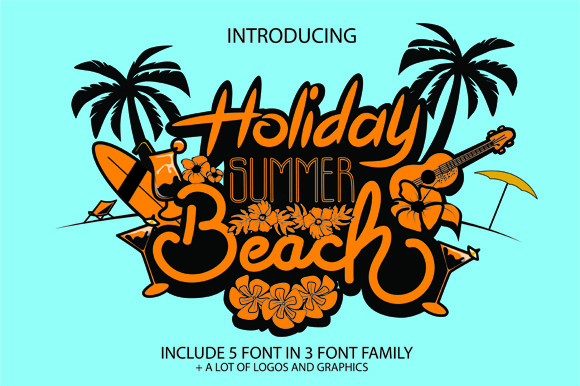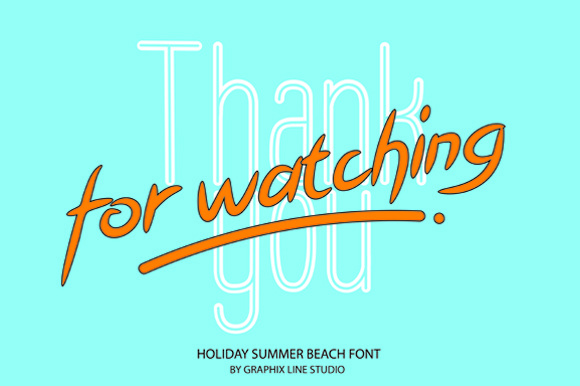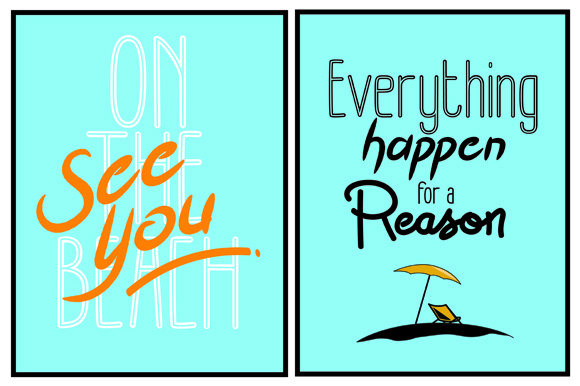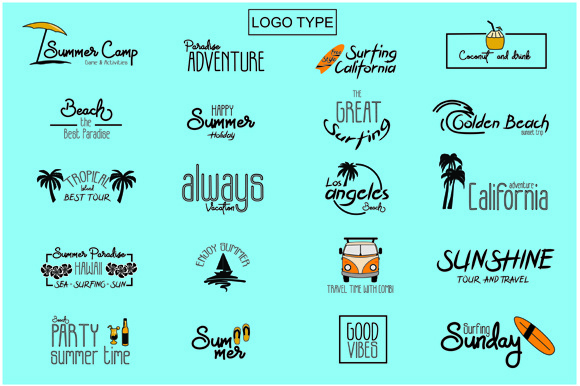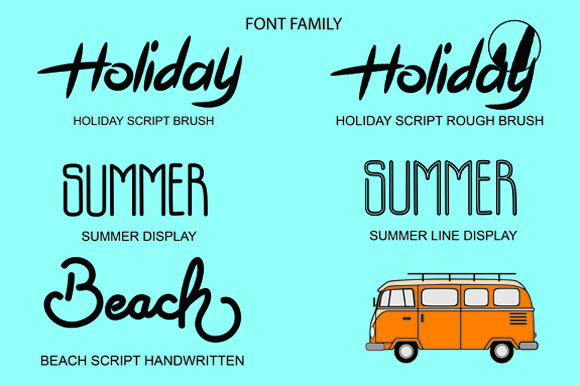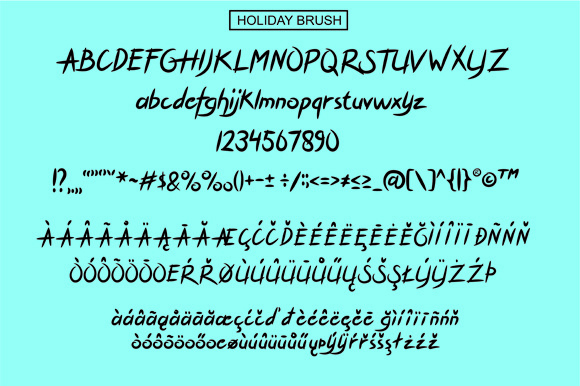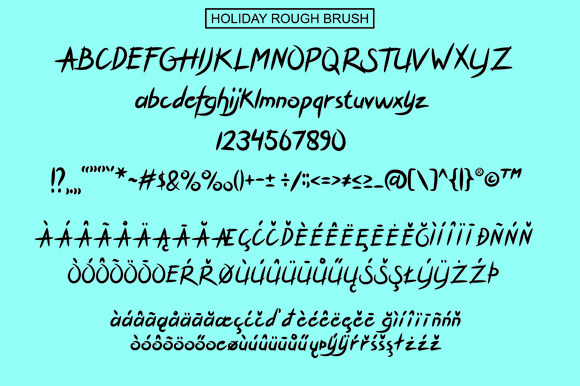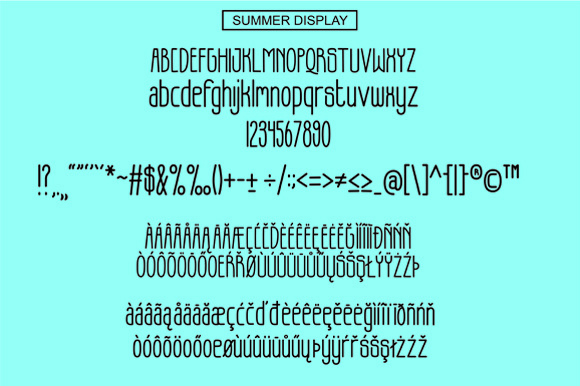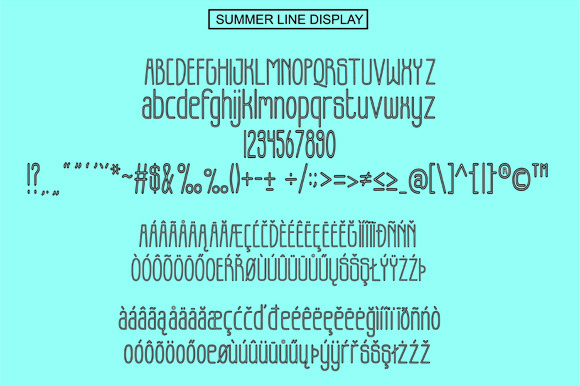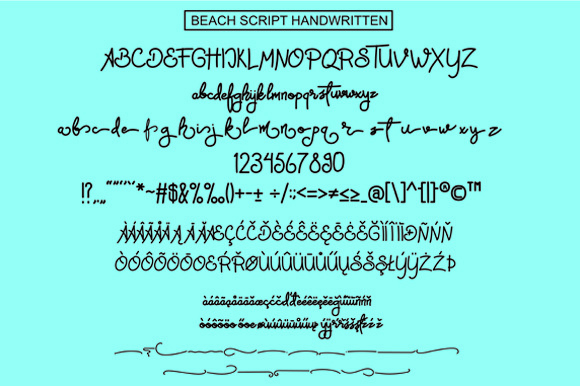
Holiday Summer Beach Font
About Holiday Summer Beach Font
Holiday Summer Beach is a stylish & modern hand letter script and display. With it’s wide variety of styles, Holiday Summer Beach can be used for a wide variety of styles such as: product packaging, product designs, labels, watermarks, special events, and much more! Holiday Summer Beach includes bonus logos and illustrations that are easy to edit.